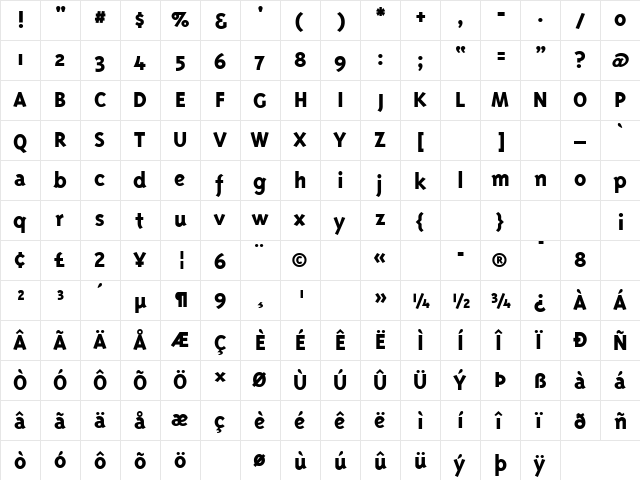
TriplexExtrabold Regular
Design Context for TriplexExtrabold Typeface
TriplexExtrabold takes a measured approach to typography — its balanced proportions and neutral character make it a reliable workhorse for both digital and print work. Its bold stroke weight gives it real presence on the page.